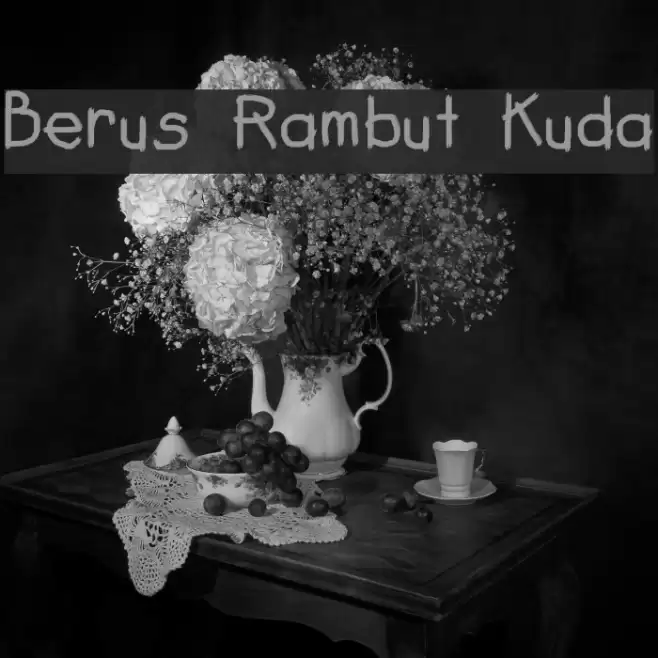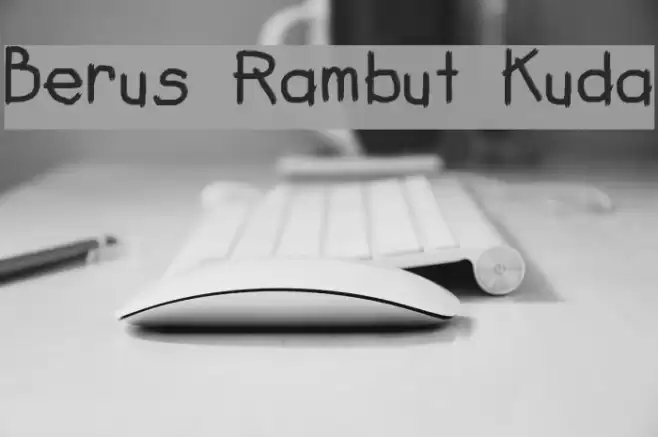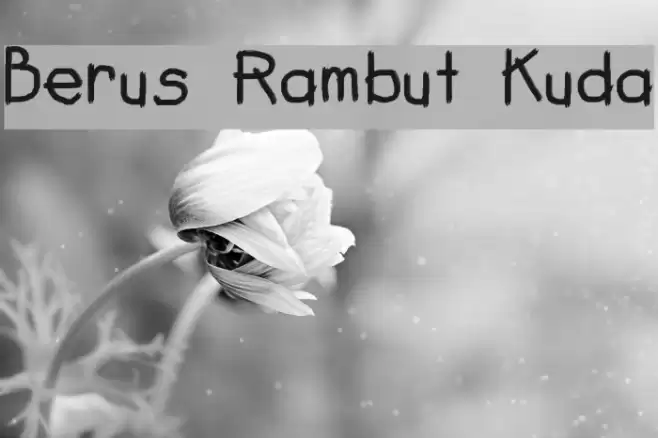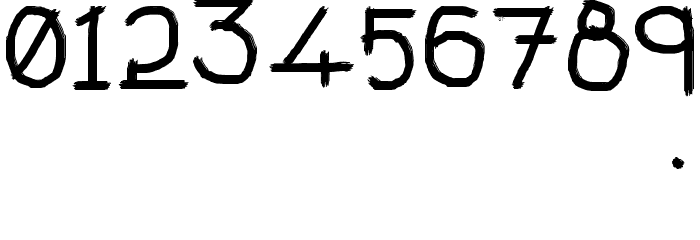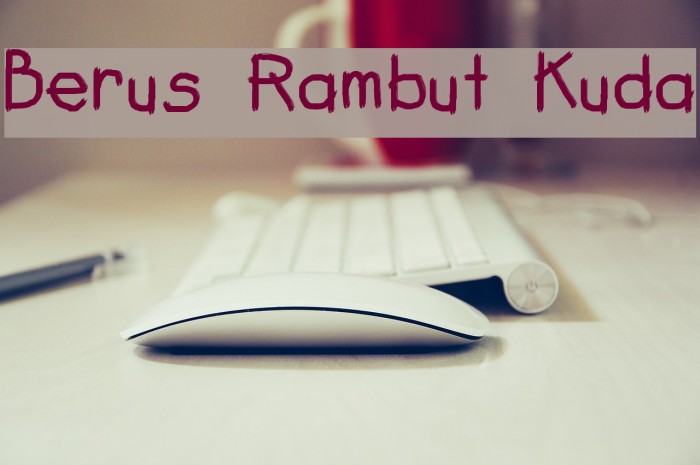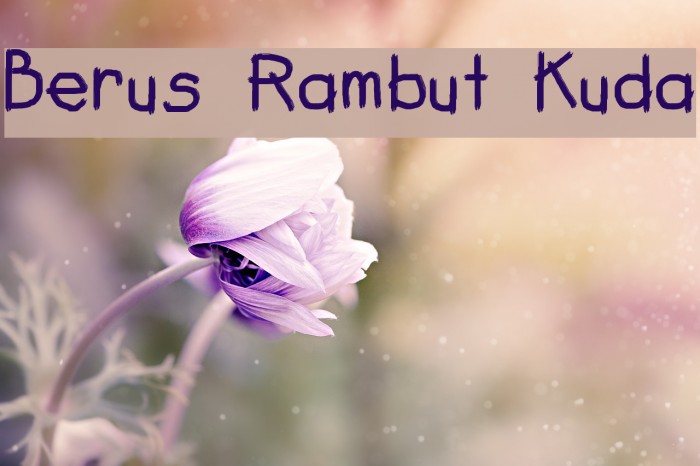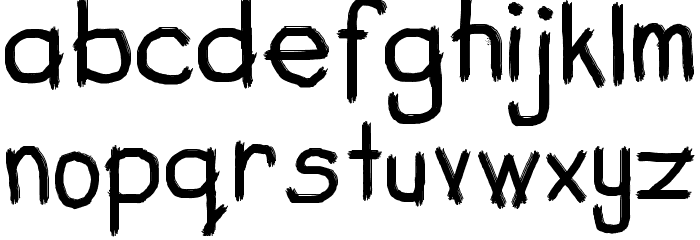
Berus Rambut Kuda Font
Berus Rambut Kuda Description
This font features a distinctive, hand-drawn style that mimics the texture and appearance of brush strokes. The letters have an organic, slightly irregular form, giving them a dynamic and lively character. The uppercase and lowercase letters maintain a consistent style, with rounded edges and varying stroke thickness that adds to the font's playful and artistic feel. Numbers and special characters follow the same design principles, ensuring a cohesive look across all elements. The font's unique texture and informal style make it stand out, ideal for creative projects that require a personal touch.
A hand-drawn, brush-stroke style font with an organic and lively appearance from Uncategorized fonts.
- Proposed Projects: Ideal for artistic projects, children's books, creative posters, and branding that requires a personal touch.
- Use Case: Logos, Posters, Creative projects